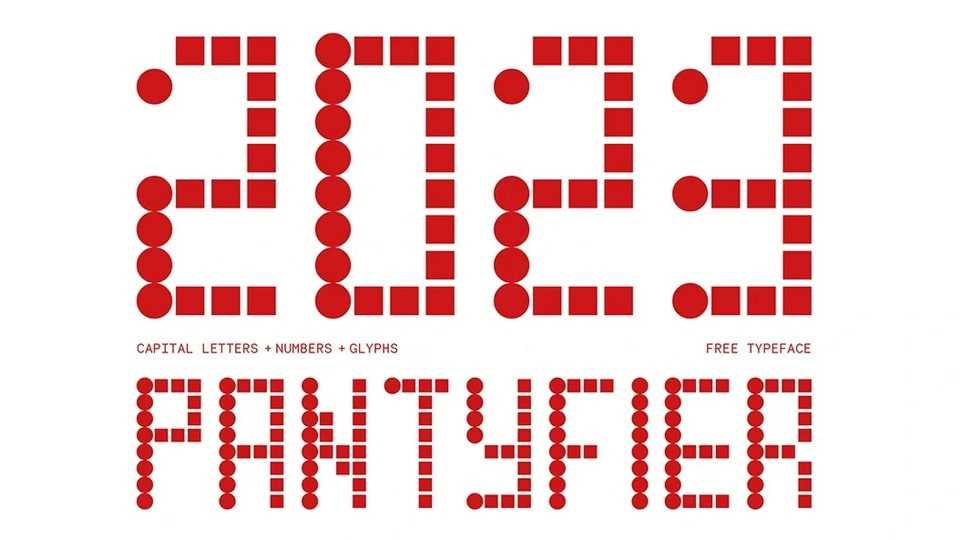
Download Pantyfier font, a geometric display typeface that combines circles and squares, resulting in a bold and impactful design. Pantyfier font is the ideal choice for projects that demand a modern and dynamic aesthetic.